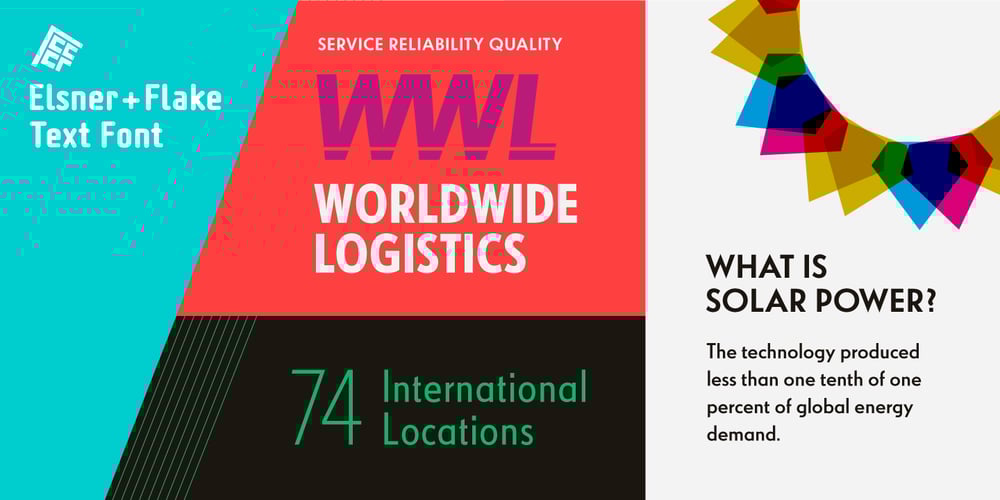
Kristall Now Pro
Kristall Now Pro font
Kristall Now Pro Font Family was designed by Johannes Wagner and published by Elsner+Flake. Kristall Now Pro contains 21 styles and family package options. The design of Kristall Grotesk Now is based on a cut by Wagner & Schmidt, Leipzig, from the 30s of the last century as well as the digital version Kristall Grotesk MdK, created for the Stiftung Werkstattmuseum für Druckkunst. The implementation of the Kristall Grotesk MdK, a headline font, was deliberately created as a replica to create a faithful reproduction of the original. The design of the complete family Kristall Grotesk Now is based on the one cut Kristall Grotesk Buchschrift by Johannes Wagner GmbH, 1937, with its function as a text family. Designer: in parts Johannes Wagner GmbH, Redesign Elsner+Flake, Hamburg Designdate: 1937, 2009 Publisher: Elsner+Flake Design Owner: Elsner+Flake Original Foundry: in parts Johannes Wagner GmbH